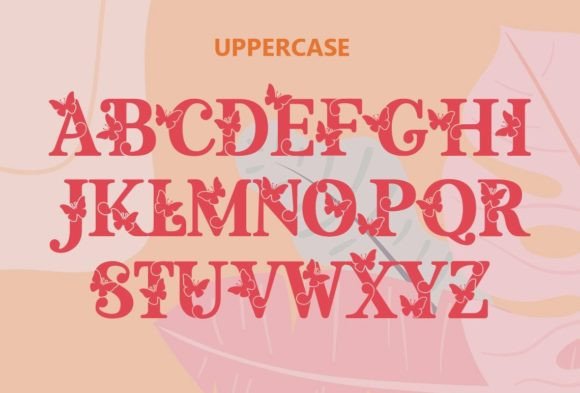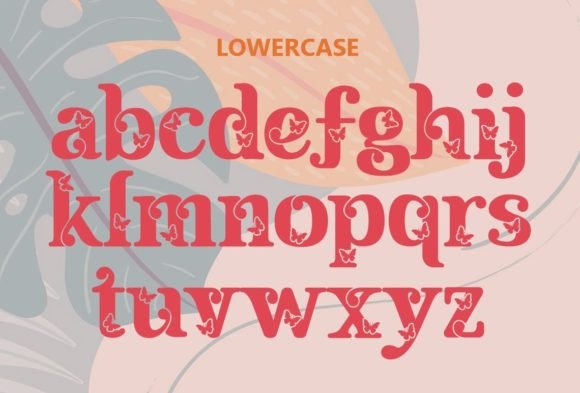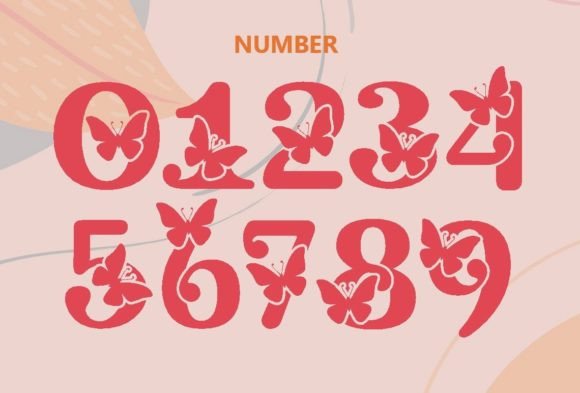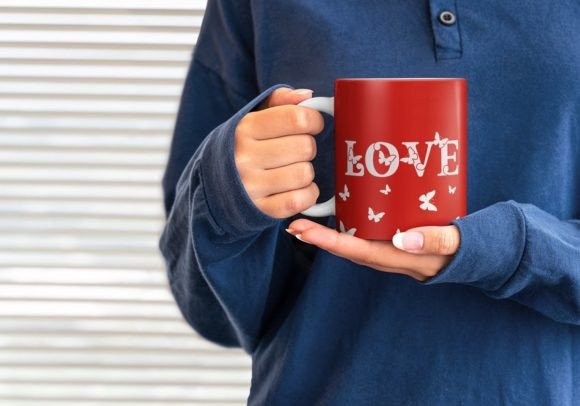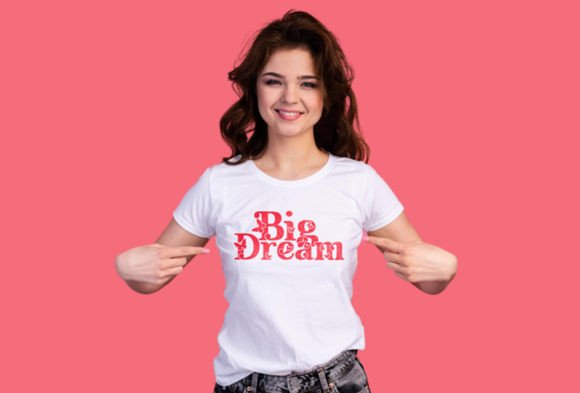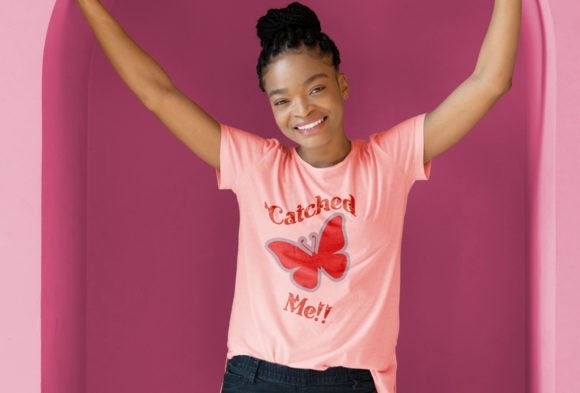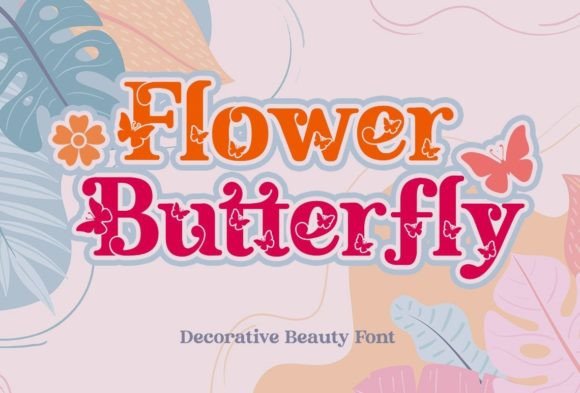
Introducing Flower Butterfly Font: The Playful Decorative Font for Your Creative Projects
Are you looking for a font that can add a touch of whimsy and playfulness to your designs? Look no further than the Flower Butterfly Font, a beautiful and authentic decorative font inspired by the delicate designs of butterflies. With its unique and eye-catching style, this font is perfect for creating stunning invitations, stationary art, social media posts, and greeting cards that are sure to stand out.
The Inspiration Behind Flower Butterfly Font
The Flower Butterfly Font is a creative interpretation of the intricate designs found on butterfly wings. The font’s design is inspired by the natural beauty of butterflies, with delicate floral patterns and swirling shapes that evoke a sense of freedom and joy. The result is a playful and decorative font that is perfect for adding a touch of elegance and sophistication to your designs.
Uses for Flower Butterfly Font
The Flower Butterfly Font is a versatile font that can be used for a wide range of creative projects. Here are just a few ideas to get you started:
- Invitations: Use the Flower Butterfly Font to create beautiful and unique invitations for weddings, birthday parties, and other special occasions.
- Stationary Art: Add a touch of elegance to your stationary art with the Flower Butterfly Font. Perfect for creating stunning greeting cards, stationery, and journals.
- Social Media Posts: Make your social media posts stand out with the Flower Butterfly Font. Use it to create eye-catching graphics, quotes, and promotions that are sure to grab attention.
- Greeting Cards: Create beautiful and heartfelt greeting cards for any occasion with the Flower Butterfly Font.
Why Choose Flower Butterfly Font?
So why choose the Flower Butterfly Font for your creative projects? Here are just a few reasons:
- Unique and Authentic: The Flower Butterfly Font is a one-of-a-kind font that is sure to add a touch of personality to your designs.
- Playful and Decorative: The font’s playful and decorative style is perfect for adding a touch of whimsy and fun to your designs.
- Elegant and Sophisticated: Despite its playful style, the Flower Butterfly Font is also elegant and sophisticated, making it perfect for creating stunning designs.
Tips for Using Flower Butterfly Font
Here are a few tips for getting the most out of the Flower Butterfly Font:
- Use it sparingly: While the Flower Butterfly Font is beautiful, it can be overwhelming if used too much. Use it sparingly to add a touch of elegance and sophistication to your designs.
- Pair it with other fonts: The Flower Butterfly Font pairs well with other fonts, such as sans-serif fonts and script fonts. Experiment with different pairings to find the one that works best for your design.
- Experiment with colors: The Flower Butterfly Font looks beautiful in a variety of colors. Experiment with different colors to find the one that works best for your design.
| Font Name | Flower Butterfly Font |
| Author | rulihoki studio |
The Flower Butterfly Font is a beautiful and authentic decorative font that is perfect for adding a touch of whimsy and playfulness to your designs. With its unique and eye-catching style, this font is sure to make your designs stand out. Whether you’re a designer, crafter, or DIY enthusiast, the Flower Butterfly Font is a must-have font for your creative projects.